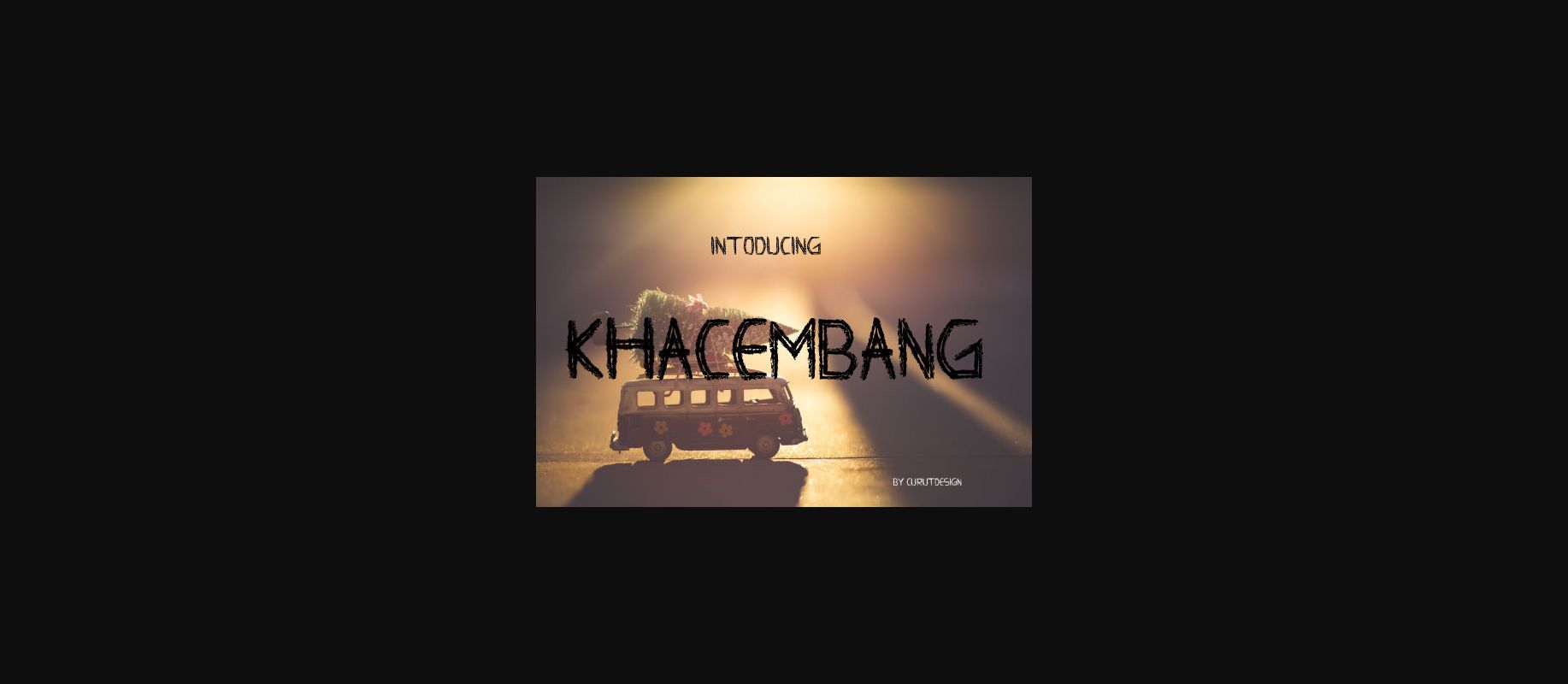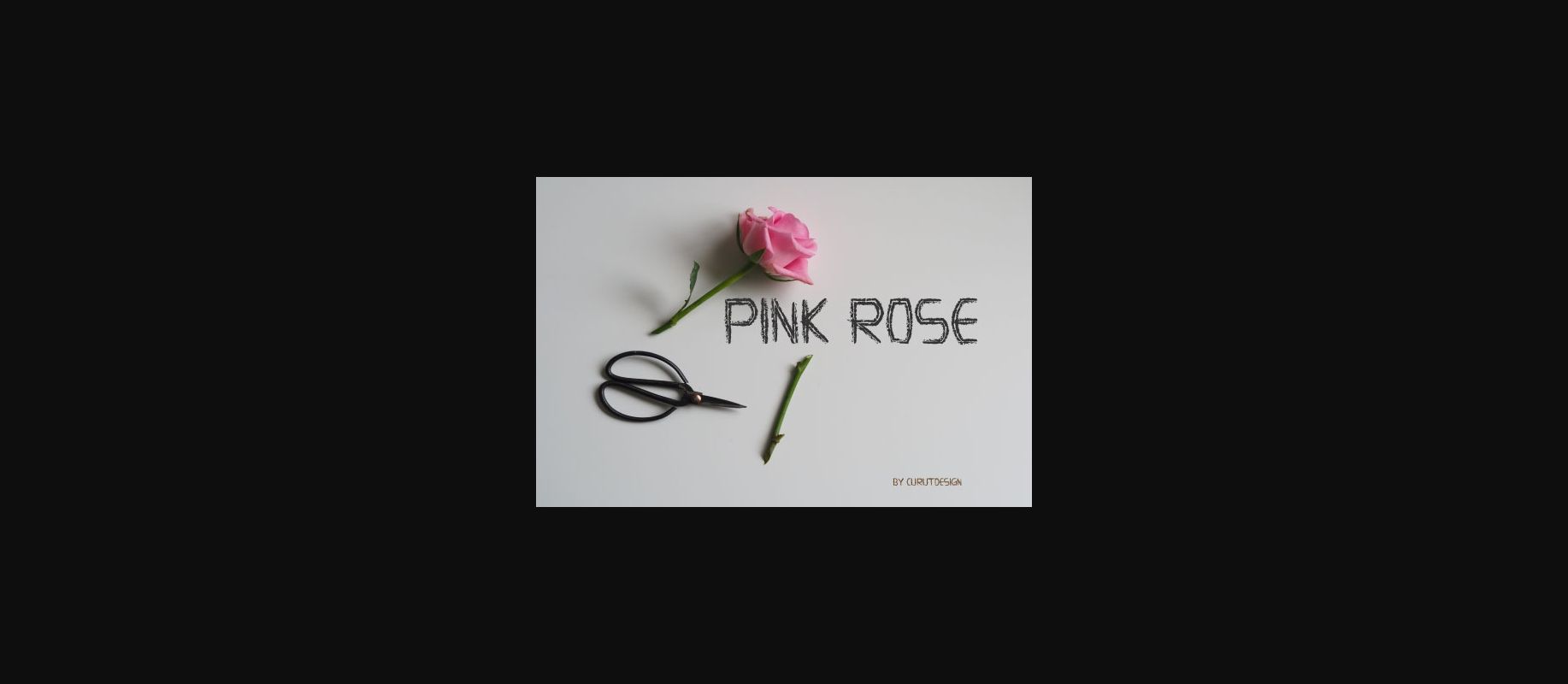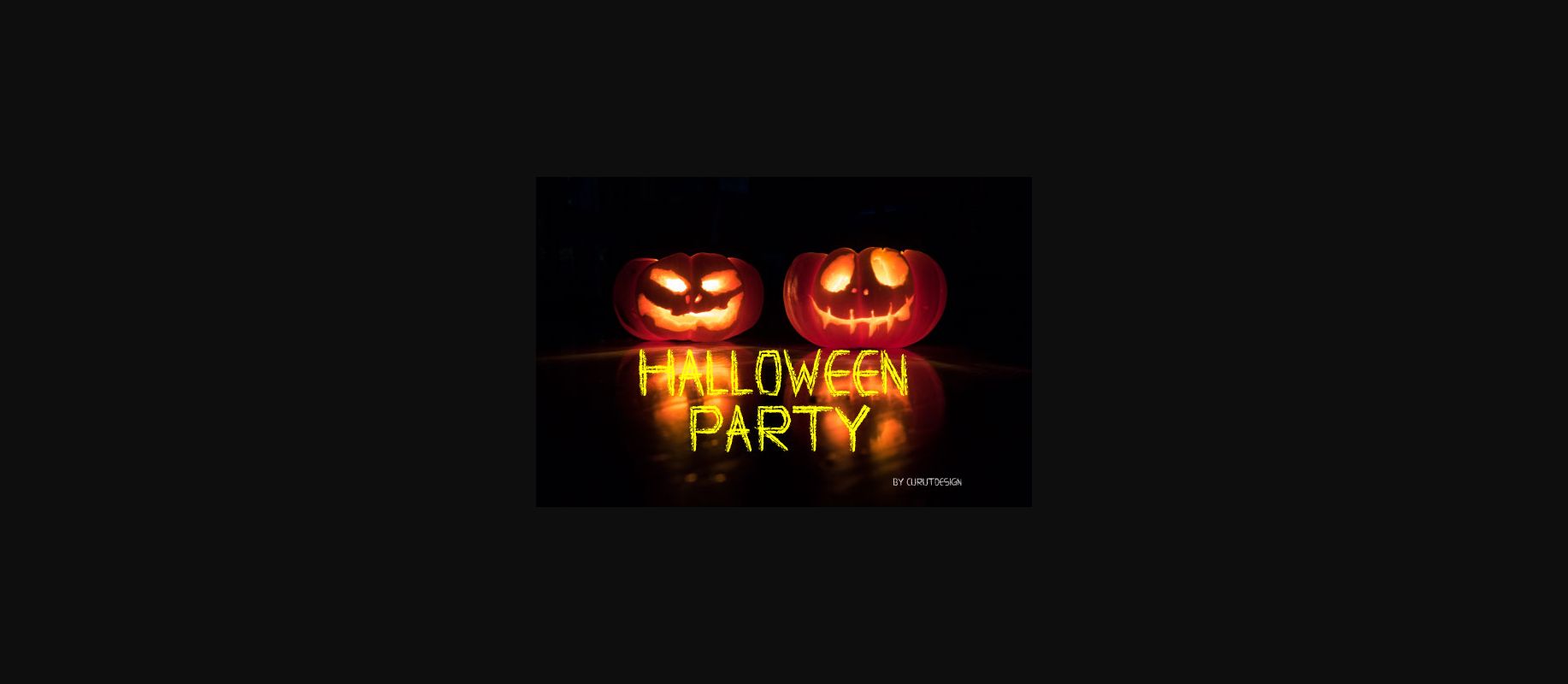
About Khacembhang Font
It’s name might be hard to pronounce, but Khacembhang is a nevertheless bold and charming sans serif font that’s great for a wide range of uses.